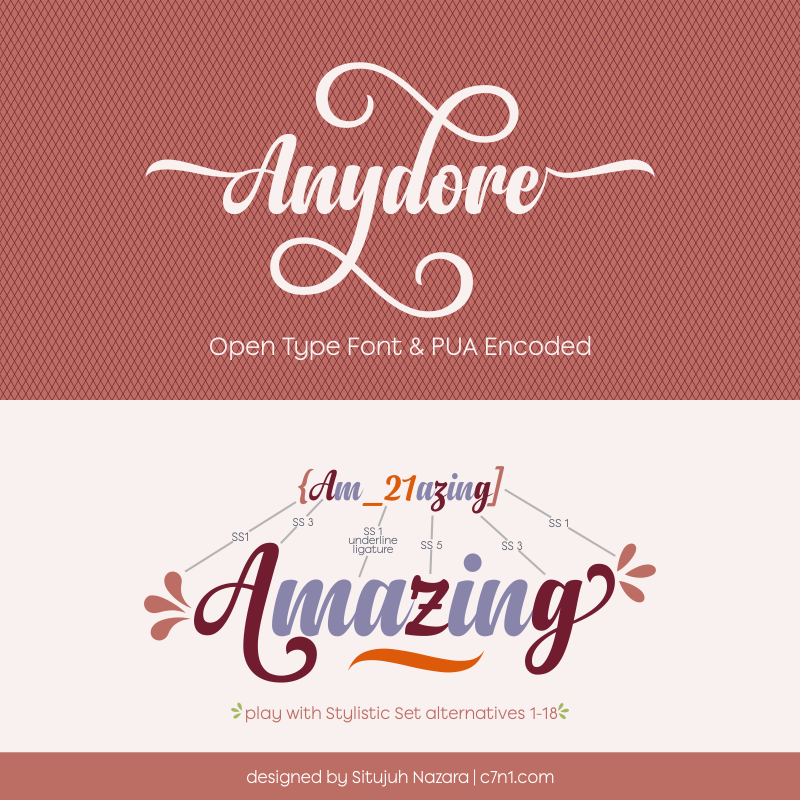
The Anydore font is an elegant strong handwritten script created by Situjuh Nazara, comes packed with lot’s of alternate characters that allow you to come up with unique designs each time you use it. The Anydore is Open Type Font (OTF), the Stylistic set alternatives (1-18) works fine in the program/software that supports the OTF. It is also PUA encoded, so you can use in the program/software that doesn't support OTF. Personal use: FREE (Donation is much appreciated!) Commercial use: BUY it on Creative Fabrica: https://www.creativefabrica.com/product/anydore/ref/87/ Contact me [c7nazara@gmail.com] or visit my website [https://c7n1.com] if you have any request or question. |